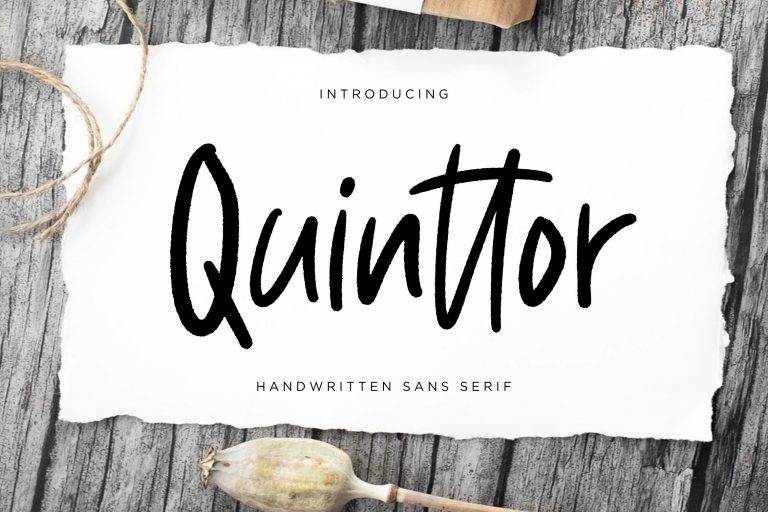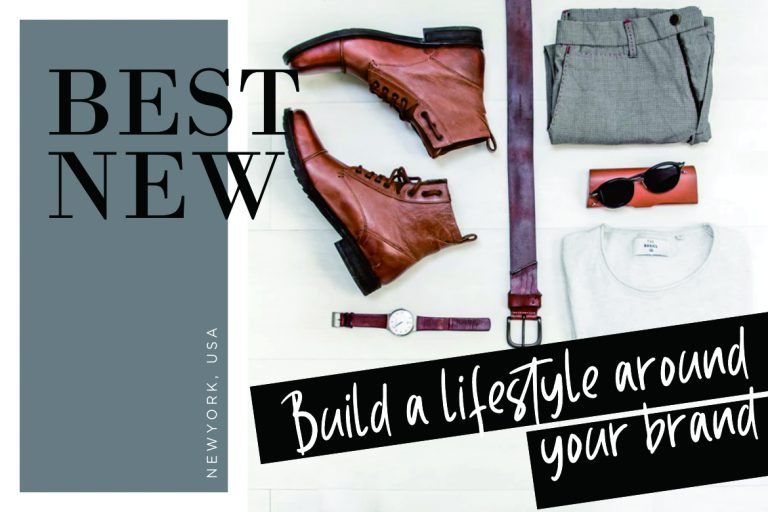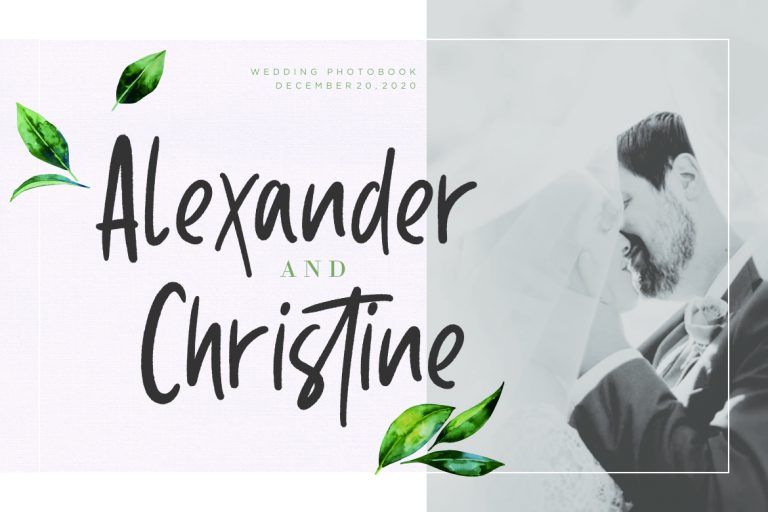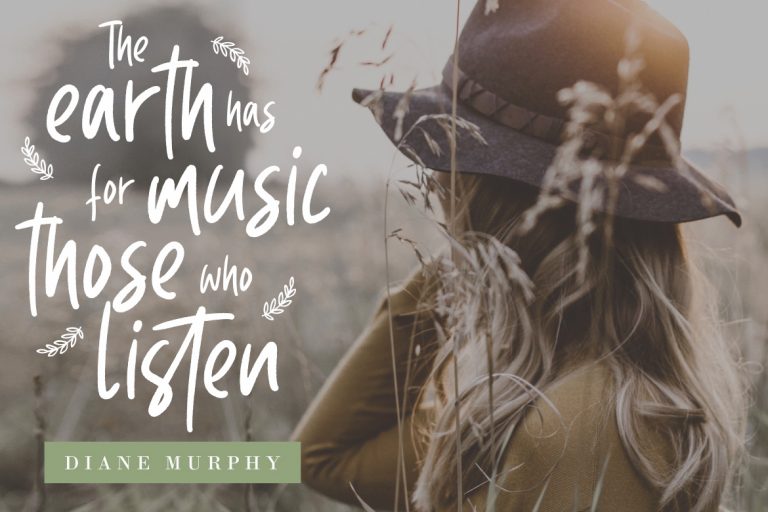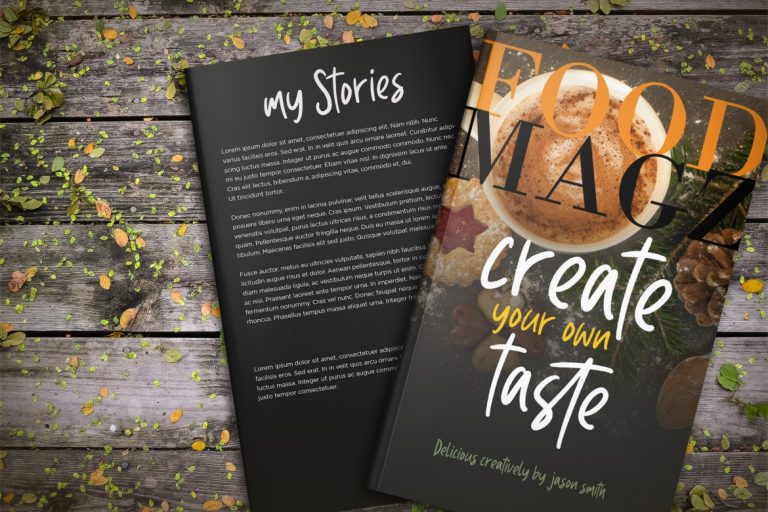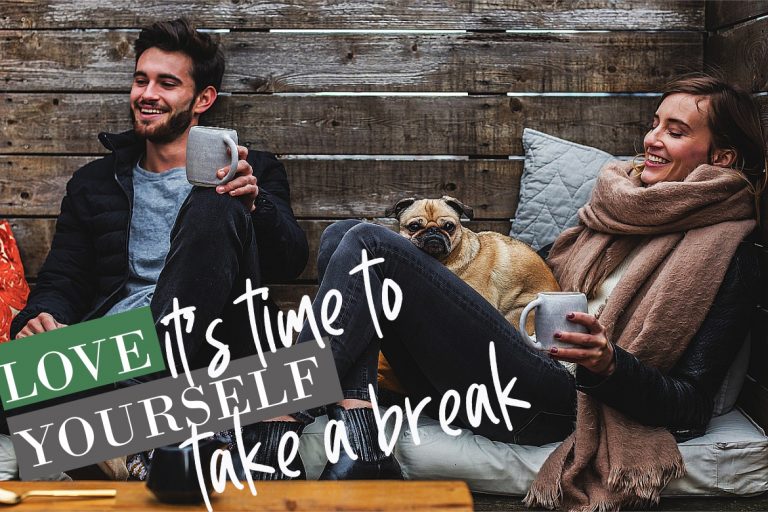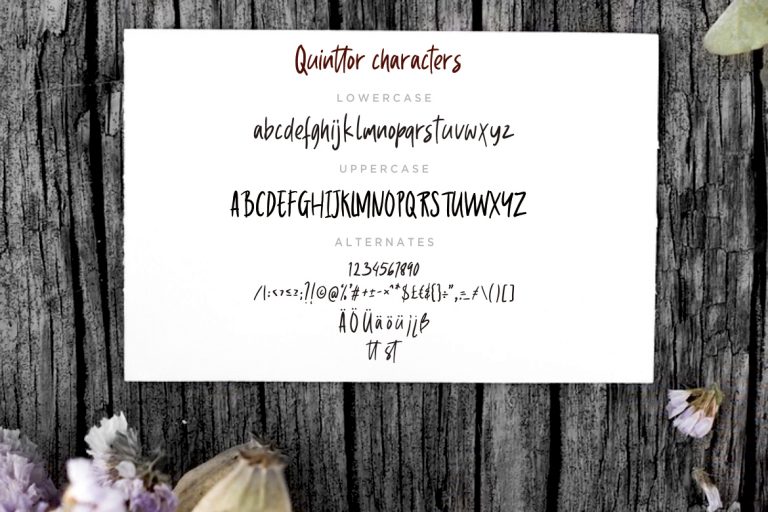
Quinttor is a hand-lettered condensed sans serif font with brush rough touch to create dramatic font.
Quinttor is perfect for branding projects, logo, wedding designs, social media posts, advertisements, product packaging, product designs, label, photography, watermark, invitation, stationery and any projects that need handwriting taste.
- Fonts include multilingual support for; ä ö ü Ä Ö Ü ß ¿ ¡
Quinttor Sans Serif